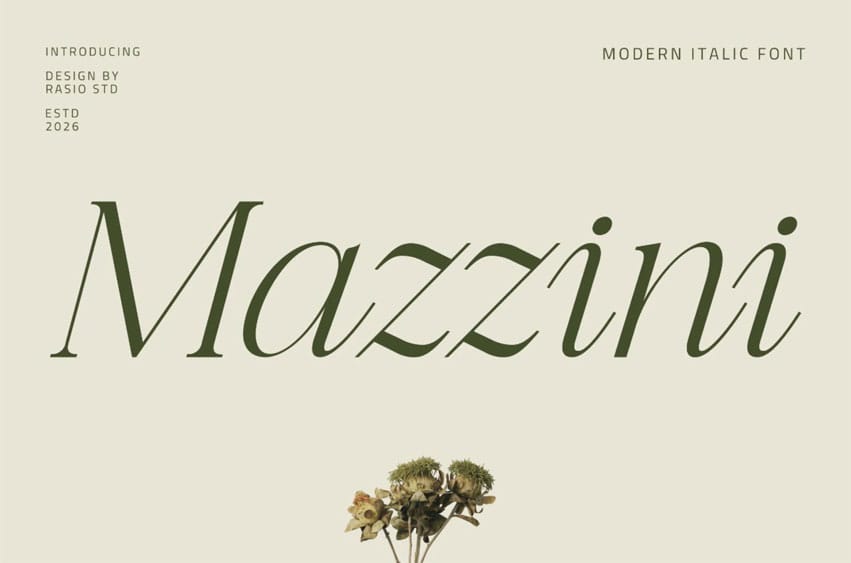
Mazzini Font
Mazzini Font is a modern italic serif font designed with refined contrast, graceful curves, and a sophisticated slanted structure. It blends classic serif elegance with contemporary minimalism, creating a harmonious and poised visual presence. The flowing italic rhythm enhances luxury branding while maintaining clarity and balance.
Relevance and Use Cases is perfect for fashion brands, beauty products, luxury packaging, editorial layouts, boutique logos, wedding stationery, and high-end social media campaigns. Its elegant italic flow makes it ideal for projects that require a refined, feminine, and poised visual identity.